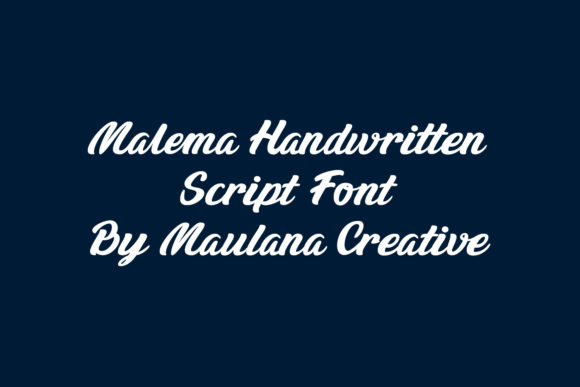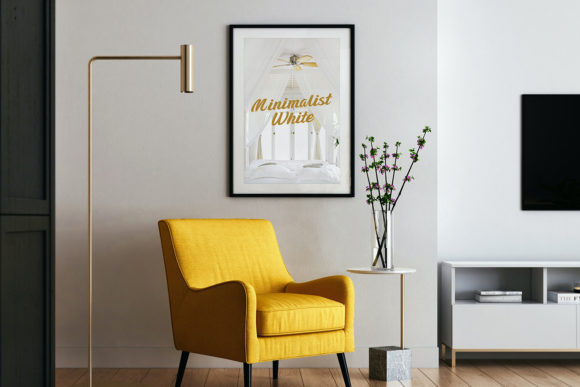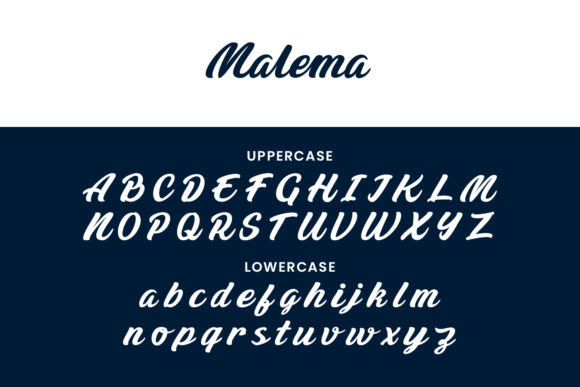
About Malema Font
Malema is a gorgeous and bold handwritten font, crafted to give your headlines and logotype projects a stylish touch. This font reads as strong, confident, and dynamic and can add tons of vintage character to your designs.